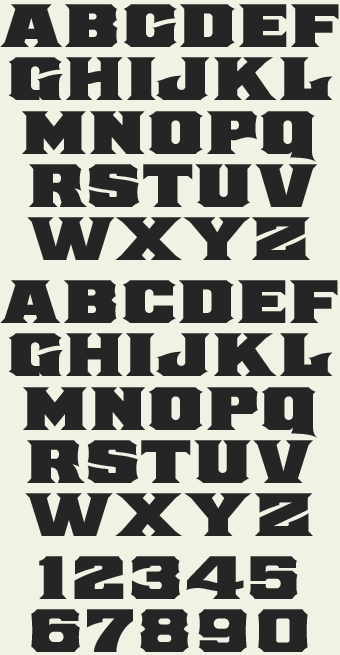
Inspired by stock certificates from the early 1900's. Bold commanding letters useful for headlines or main copy. Sharp serifs help give it a distinct masculine look. Especially nice when contrasted with thinner fonts.